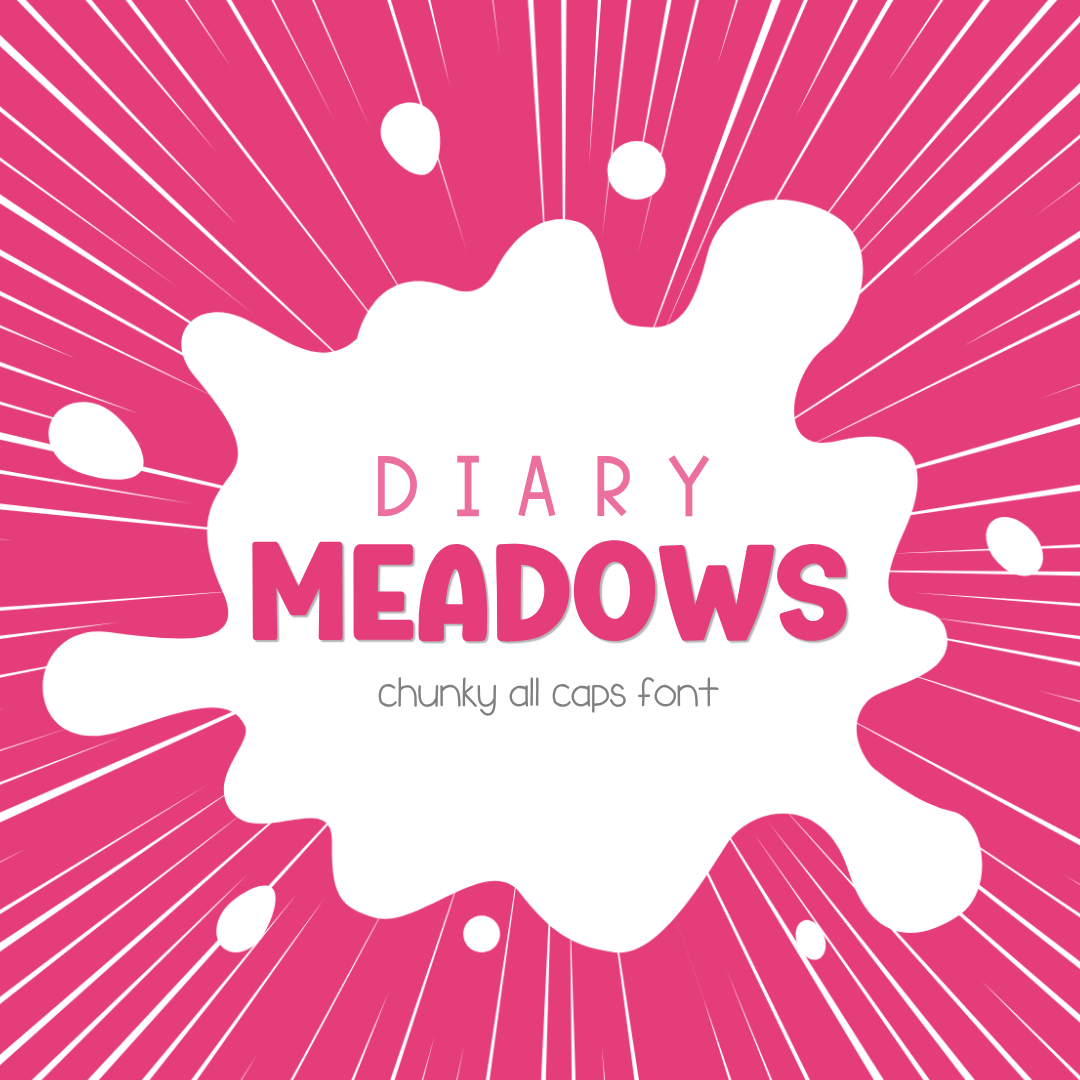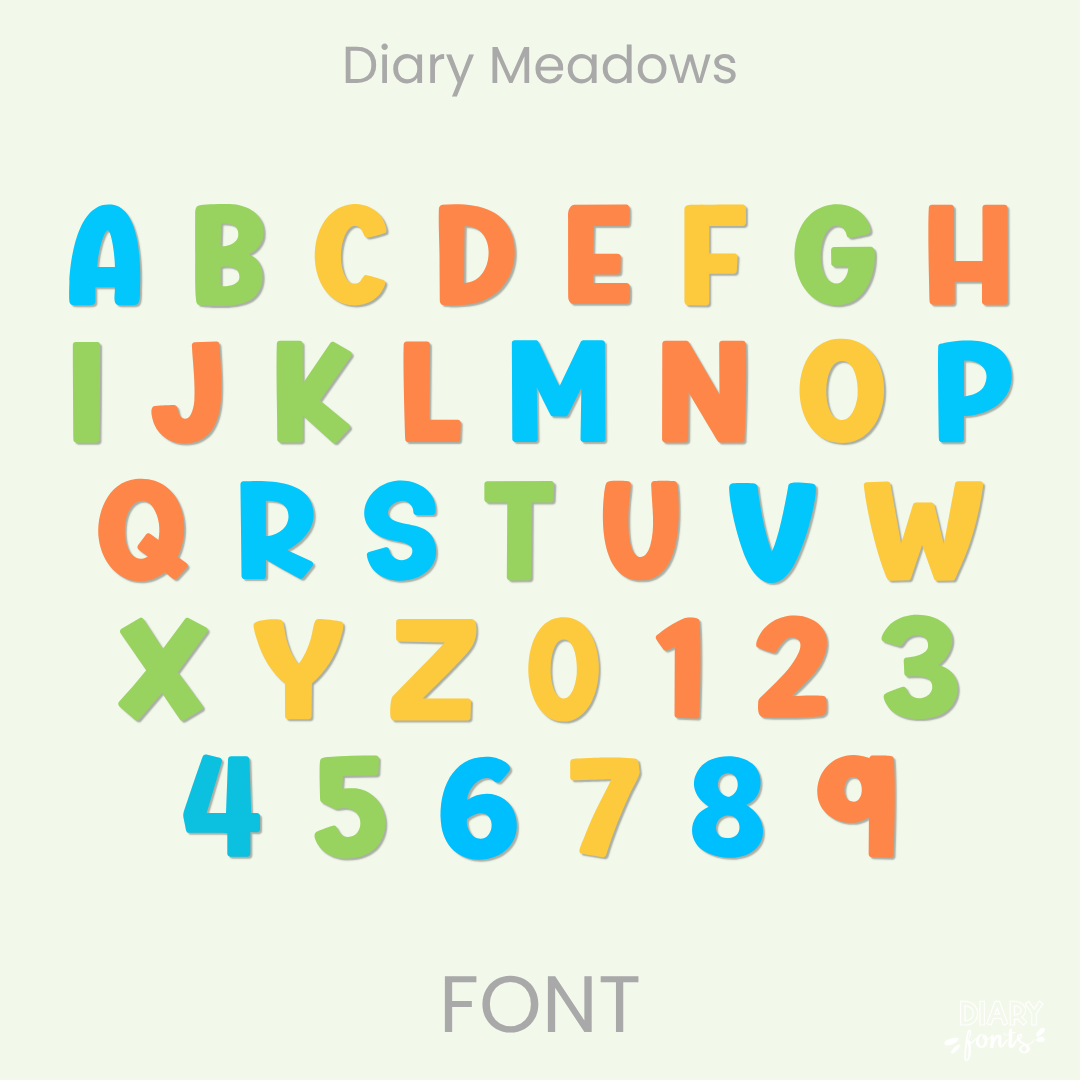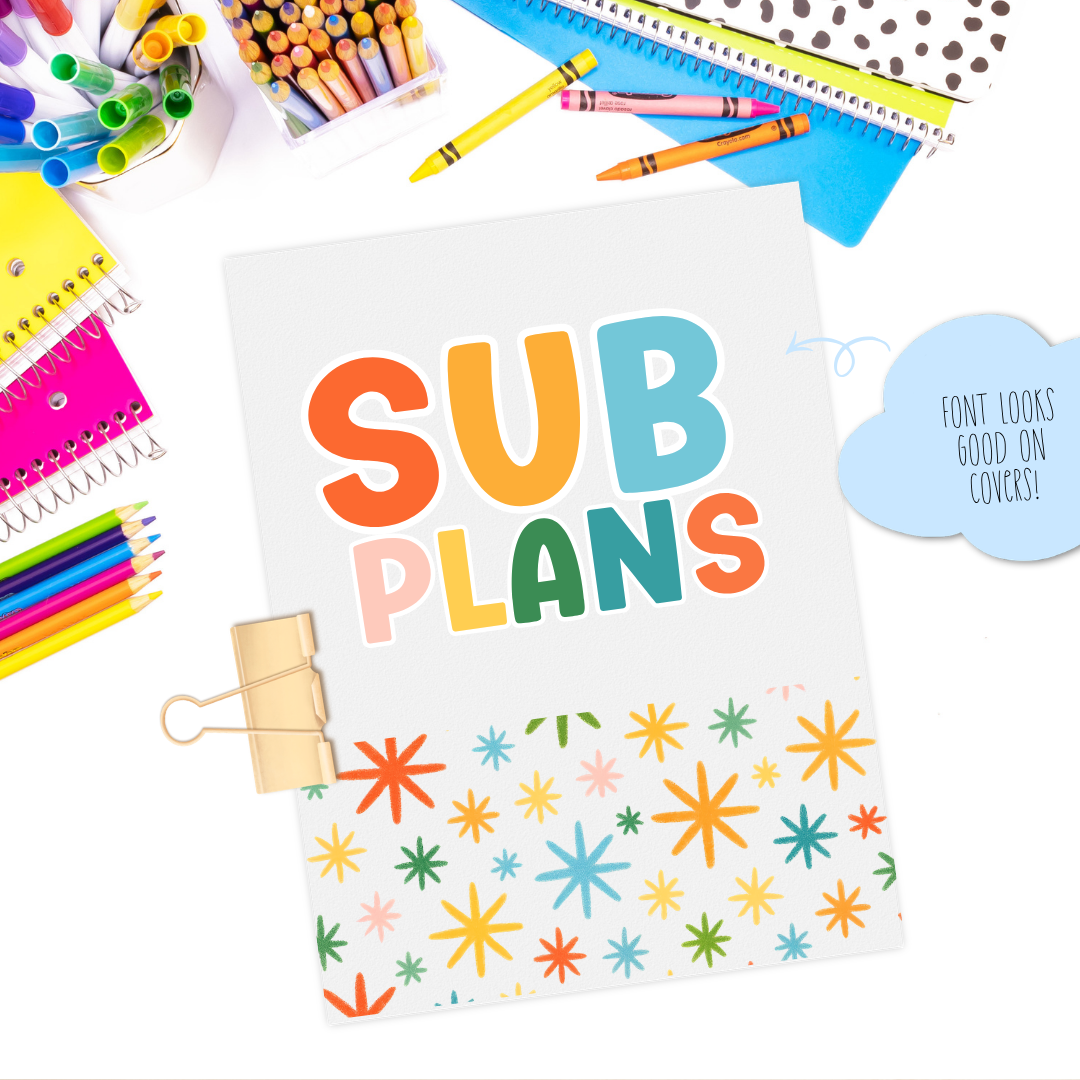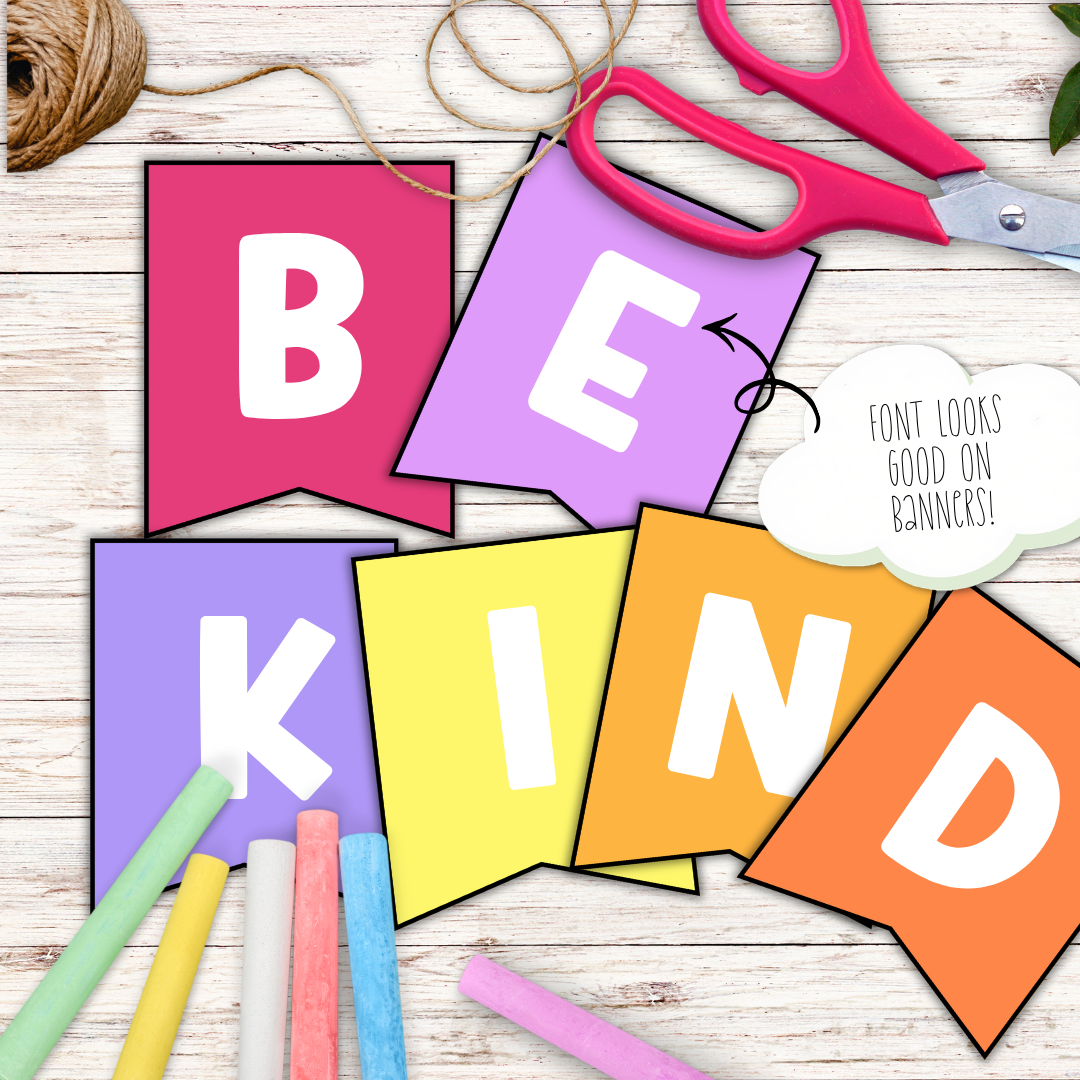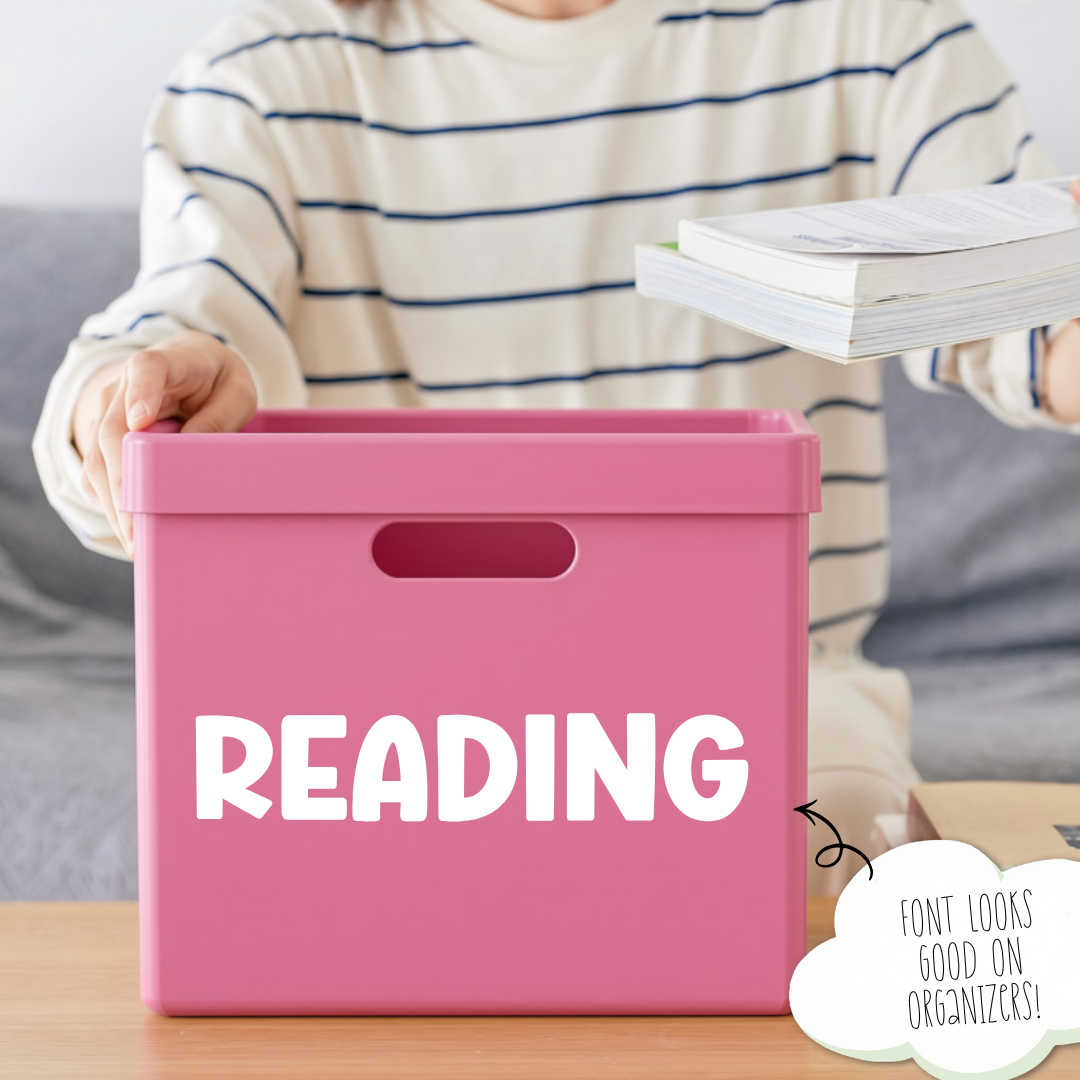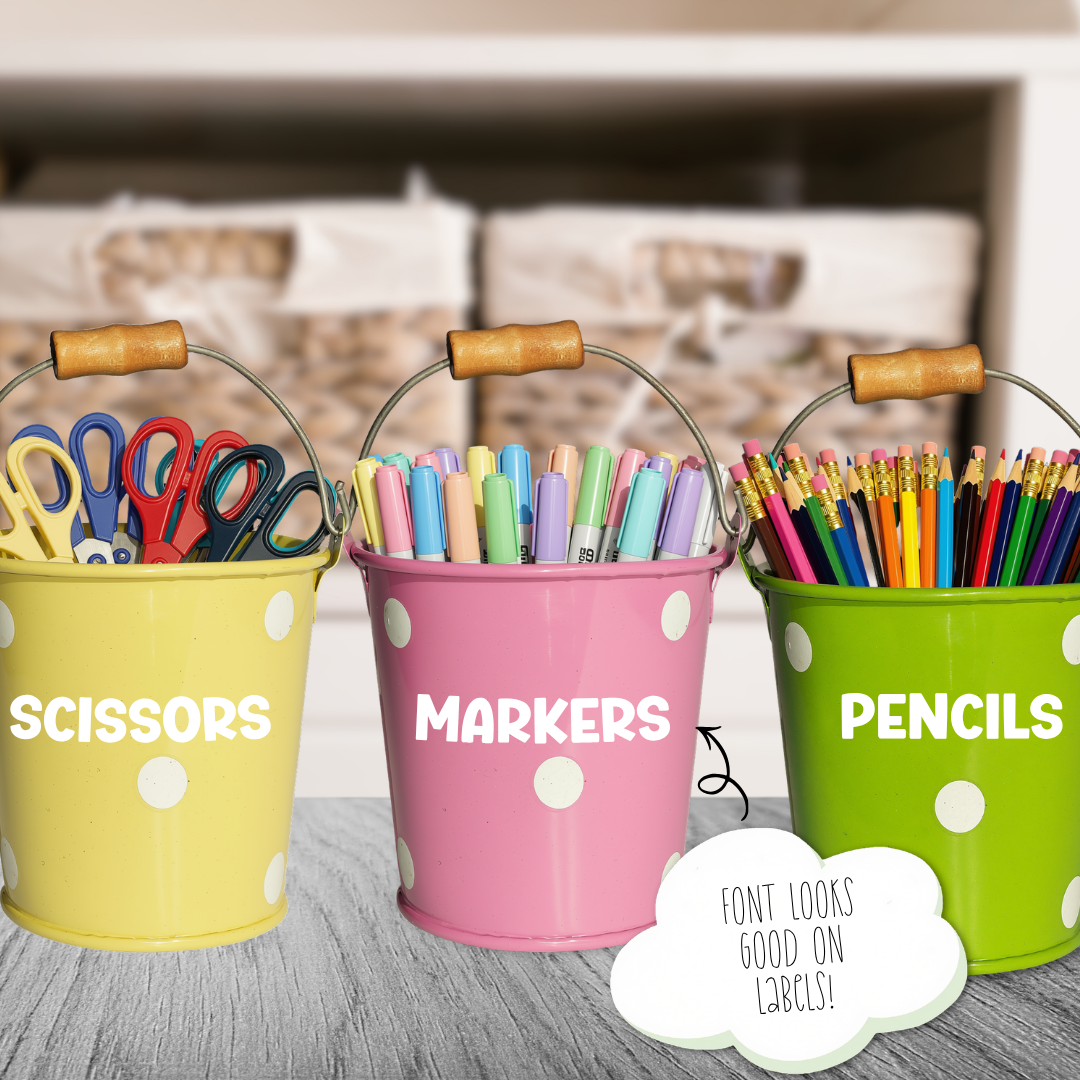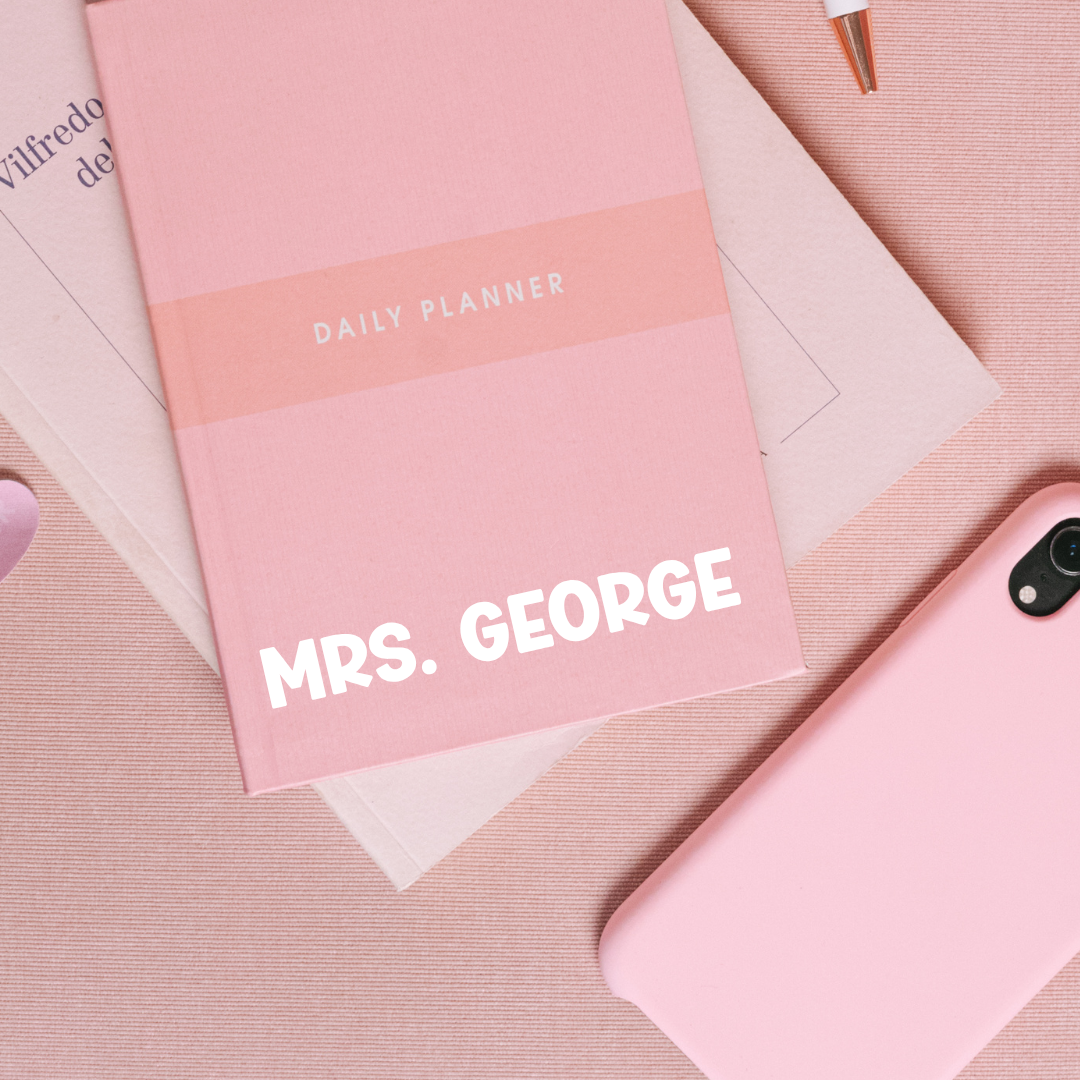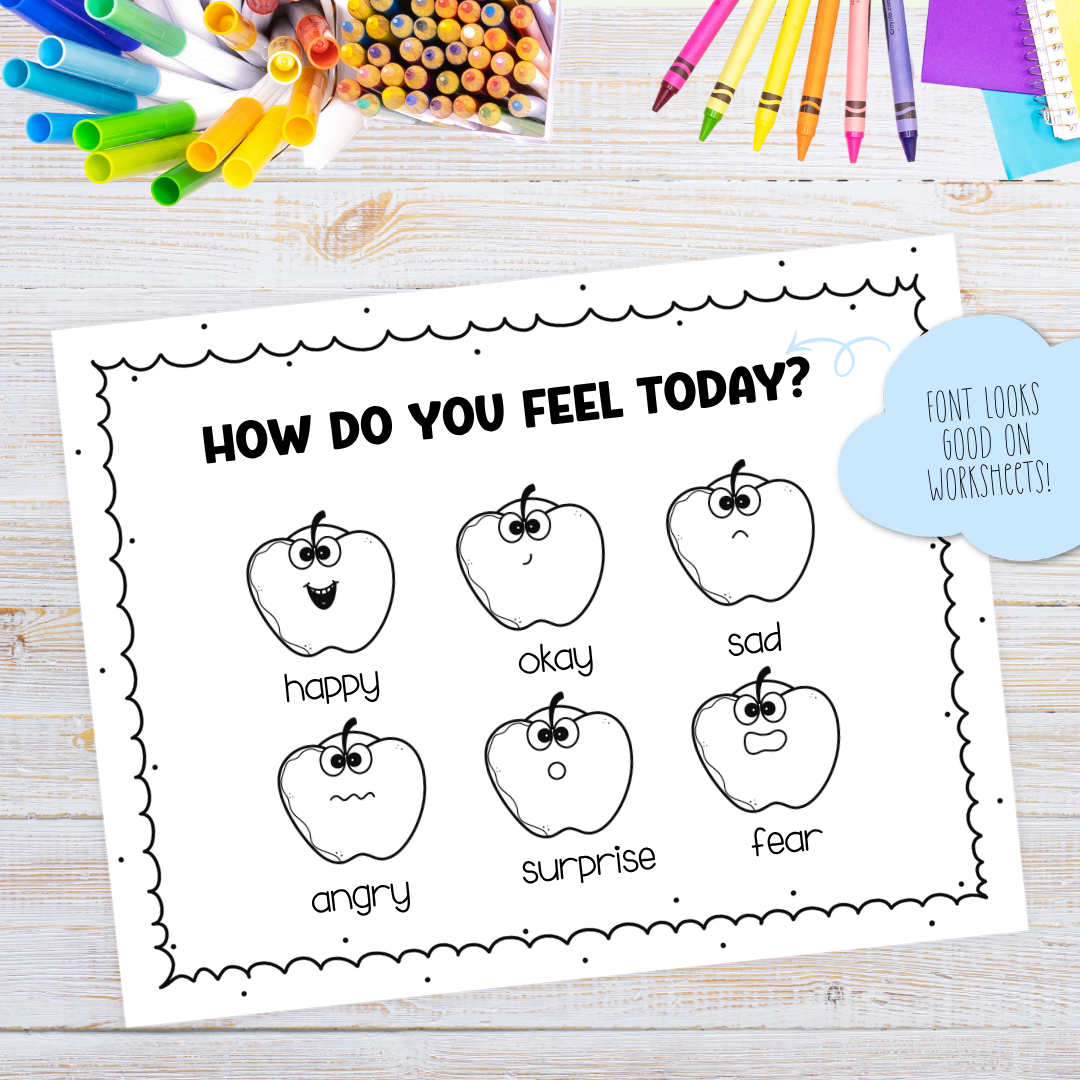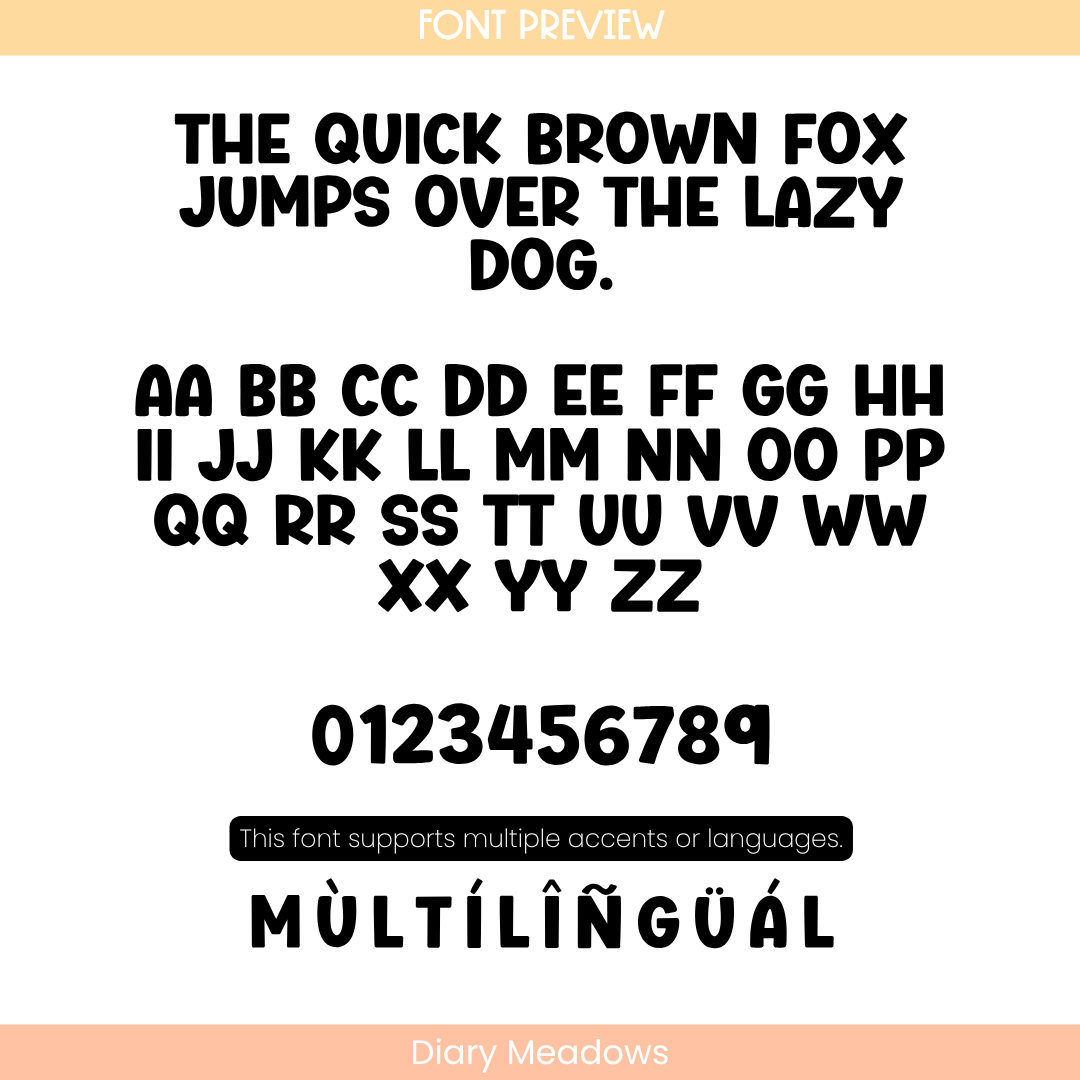
If you’ve been searching for a heavy-weight headline font that brings a cheerful, sturdy, and high-impact feel to your designs, Diary Meadows is about to become your new absolute favorite creative asset. This delightful display typeface features thick, rounded, and solid block letterforms that stand proud and uniform along the baseline. Designed specifically as a chunky all-caps font, its bold weight and clean outline structure ensure maximum readability from across the classroom, allowing your titles to pop instantly without competing with background clutter.
It is an absolute dream choice for crafting classroom bulletin board banners (like big, bright motivational signs!), labeling large toy baskets and reading bins, designing striking teacher binder covers (like your daily sub plans!), and typing up bold worksheet headers. Inside the download, you’ll get a complete set of bold, neat uppercase characters, clean matching block numbers, and full multi-accent support for multilingual layouts. It installs easily into Canva, MS Office, or Adobe on your desktop, and pairs beautifully with Procreate and GoodNotes on your iPad. Whether you’re setting up a colorful, organized learning space for your own students or designing premium, commercial-use printables for your teacher shop, this thick display font brings a boost of confident, warm style to your creative toolkit.